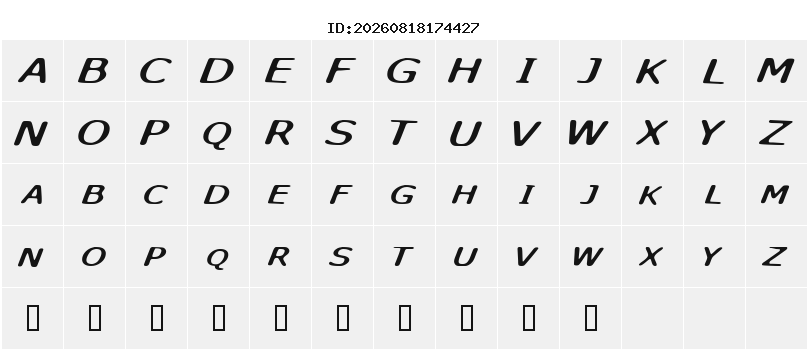
Sky Skunk Preview
• Font Name: Sky Skunk
• Font ID: Sky Skunk
• Full Font Name: Sky Skunk
About Sky Skunk.ttf
Sky Skunk.ttf is a modern, elegant sans-serif font designed for ultimate readability and visual harmony. Perfect for branding, headlines, web design, and print materials.